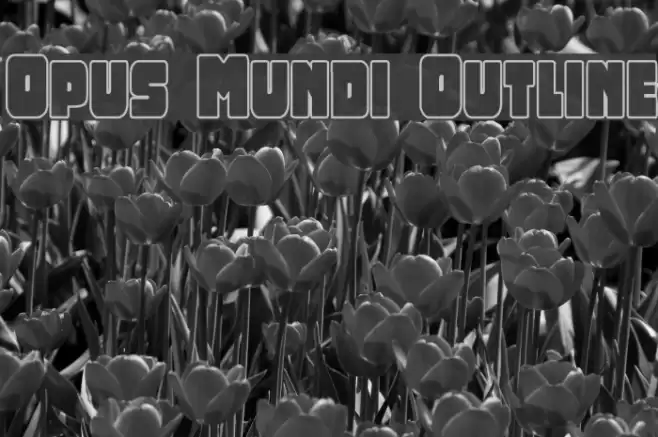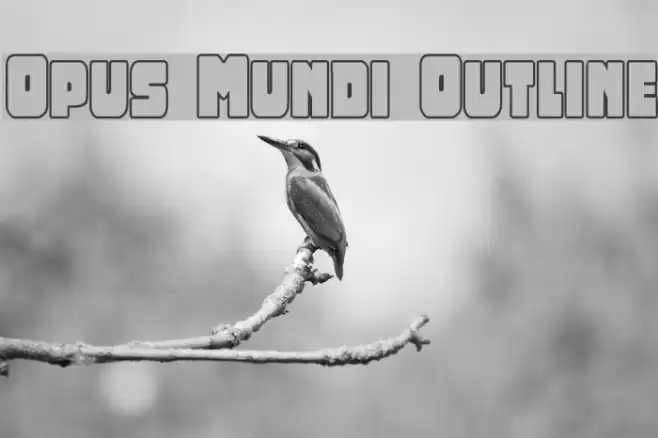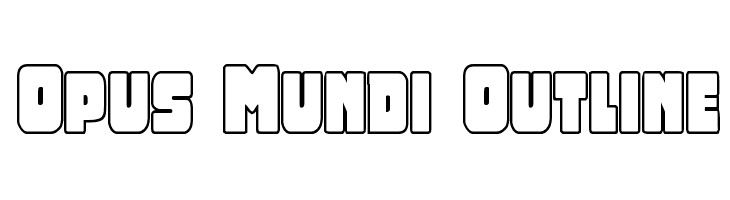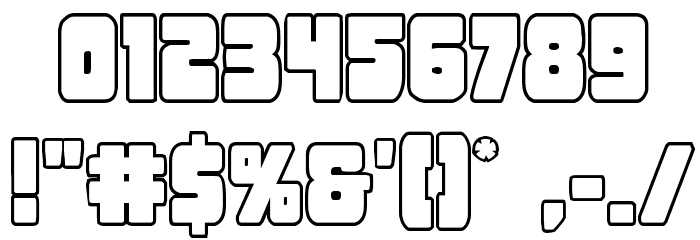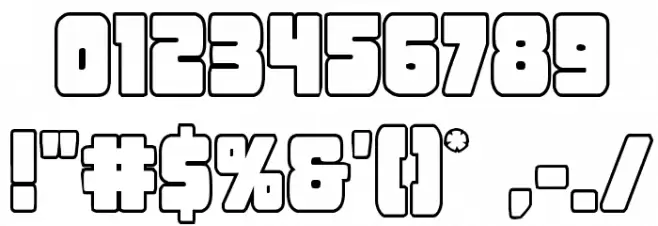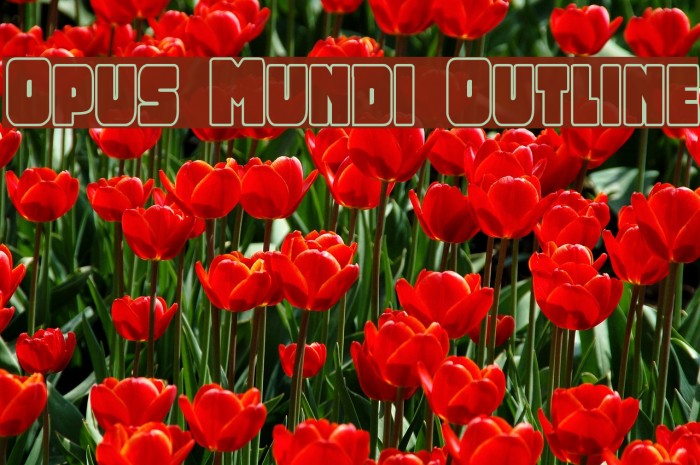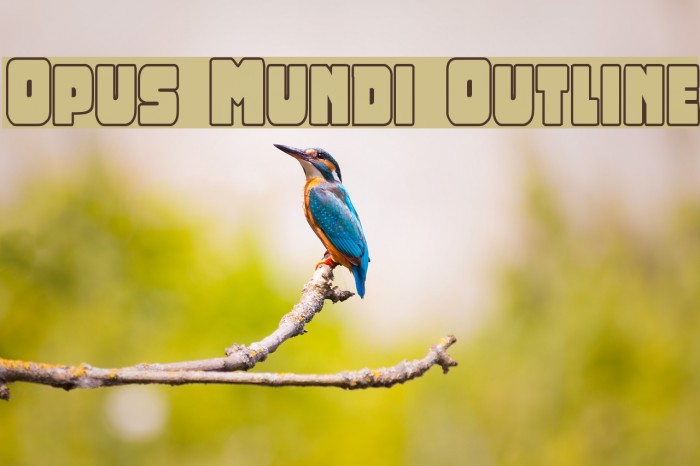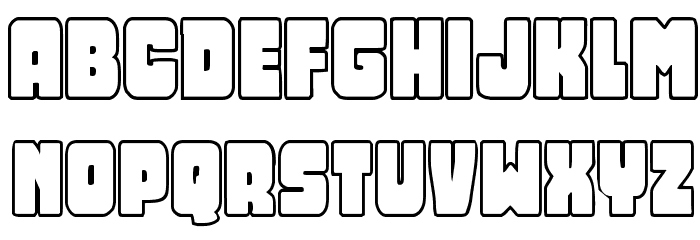
Opus Mundi Outline Font
Opus Mundi Outline Description
This font features a bold, outlined style that gives each character a strong, impactful presence. The geometric shapes and uniform thickness of the outlines create a modern and structured appearance. Each letter and number is distinctly separated by its outline, enhancing readability while maintaining a playful and decorative look. The font's design is consistent across uppercase, lowercase, and numerical characters, providing a cohesive visual experience. Special characters are also included, maintaining the same outlined style, which adds versatility to the font's use. The overall aesthetic is both contemporary and eye-catching, making it suitable for various creative applications.
A bold, outlined font with a modern, geometric style from Uncategorized fonts.
- Proposed Projects: Ideal for posters, headlines, logos, and branding materials where a strong visual impact is desired.